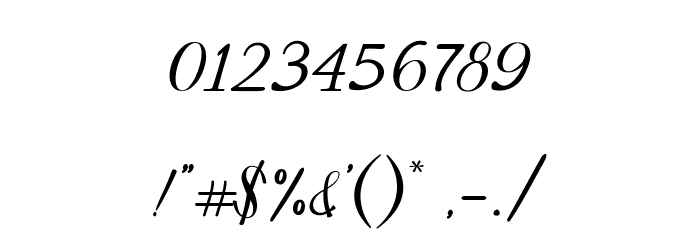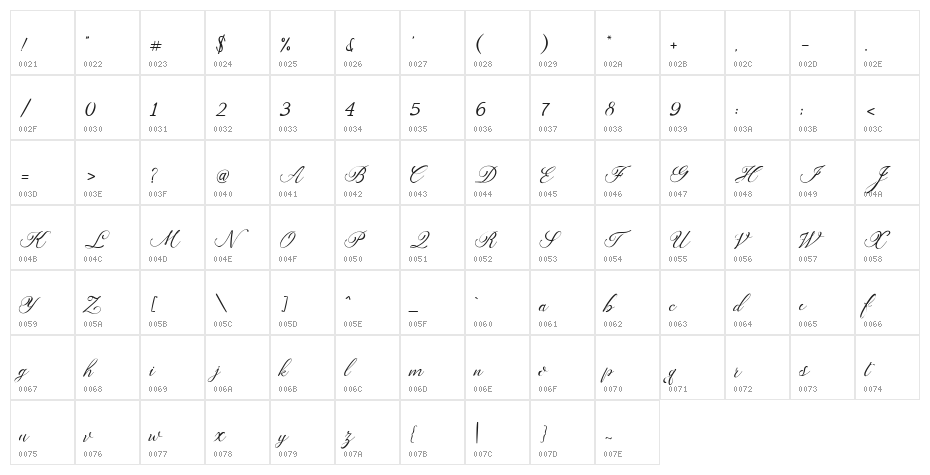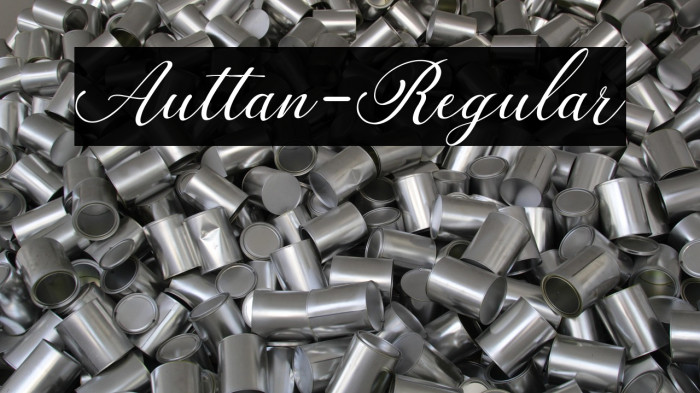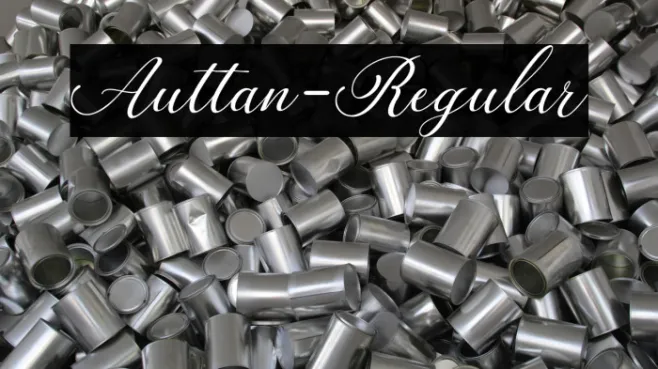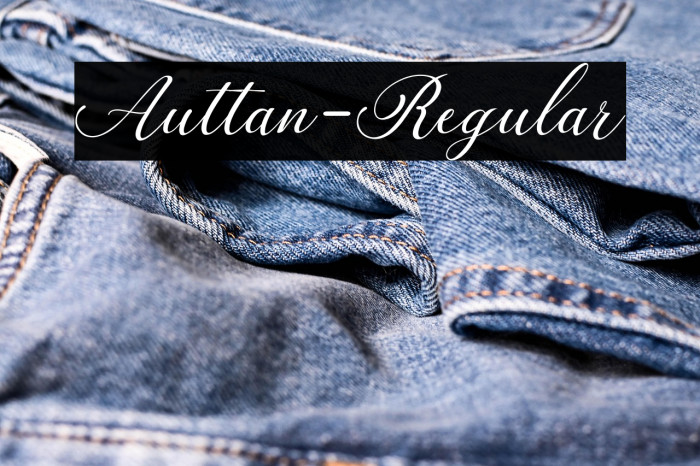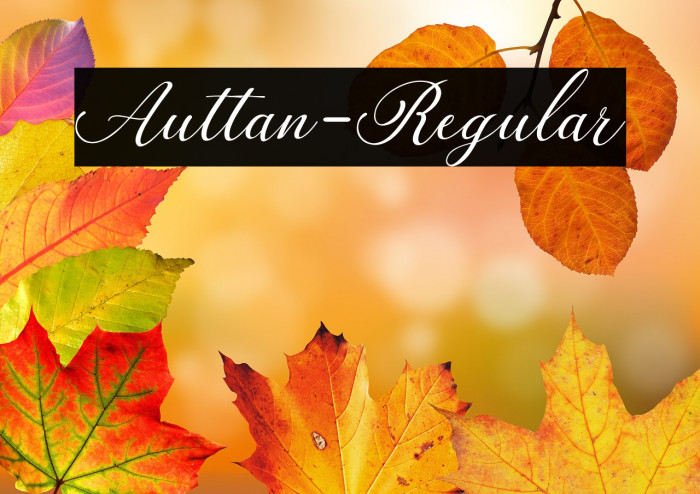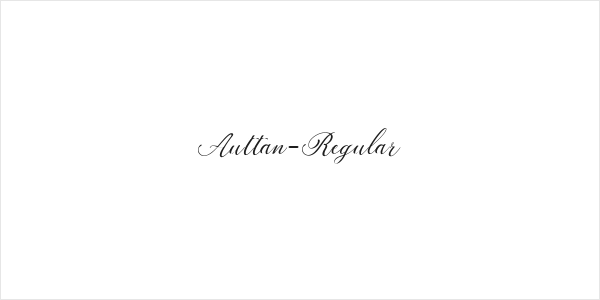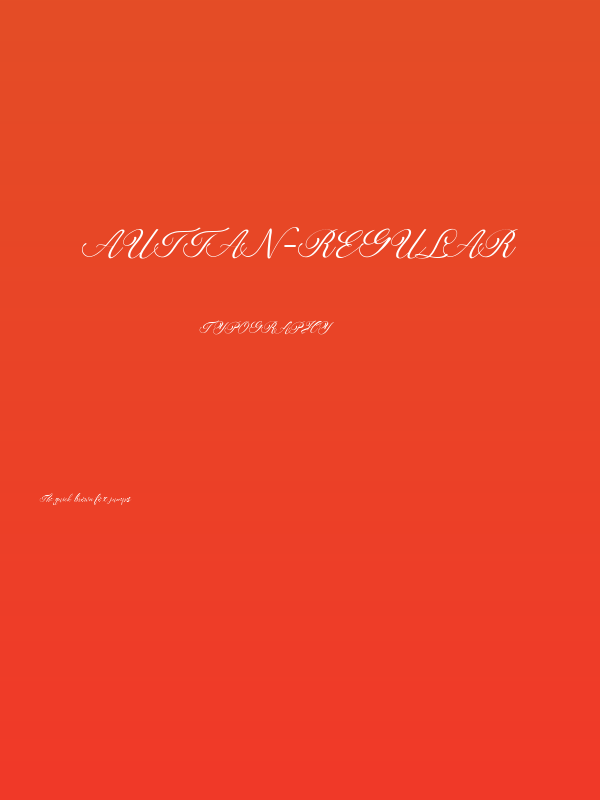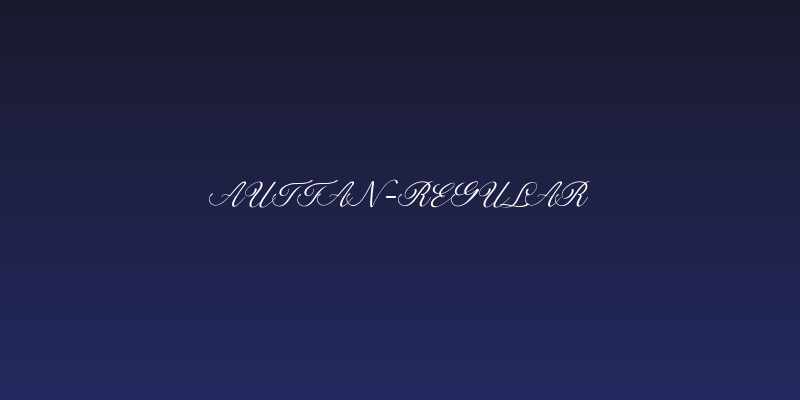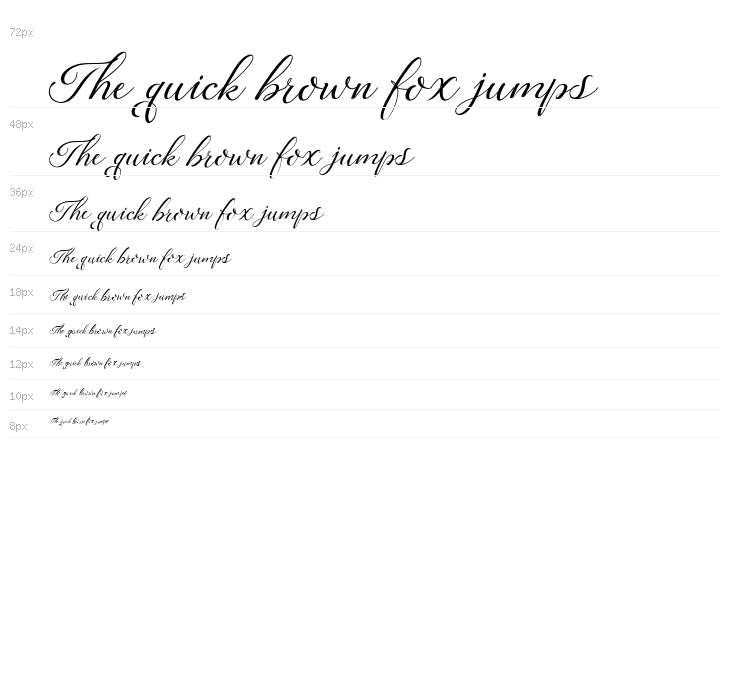
Auttan-Regular Font
Auttan-Regular Description
This elegant script font features flowing, cursive letterforms with graceful loops and swashes. The uppercase letters are ornate, with intricate flourishes that add a touch of sophistication. The lowercase letters maintain a consistent style, offering a smooth and connected appearance. Numbers and special characters are designed with the same attention to detail, ensuring a cohesive look across all text. The font's overall aesthetic is both classic and refined, making it suitable for formal invitations, branding, and decorative purposes.
| Proposed Projects | Ideal for wedding invitations, luxury branding, greeting cards, and decorative signage. |